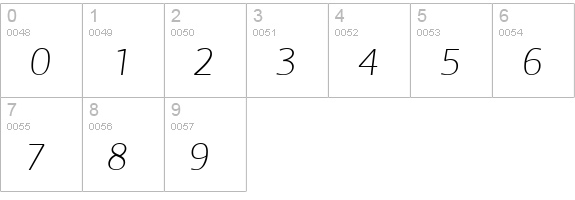
PFAgoraSansPro-ThinItalic is a sleek and elegant typeface that exudes modernity and sophistication. Its thin and slanted characters offer a delicate touch to any design project, adding a sense of grace and finesse. The italicized style of this font creates a sense of movement and fluidity, making it perfect for conveying a sense of elegance and style. What sets PFAgoraSansPro-ThinItalic apart is that it is available for free download at FontsMarket.com, making it accessible to designers and creatives looking to elevate their projects without breaking the bank. Whether you're working on a branding project, editorial design, or any other creative endeavor, this font is sure to make a statement with its refined aesthetic and effortless charm. Download PFAgoraSansPro-ThinItalic today and add a touch of sophistication to your designs.